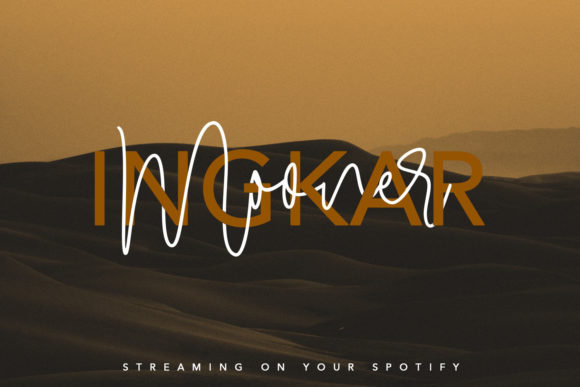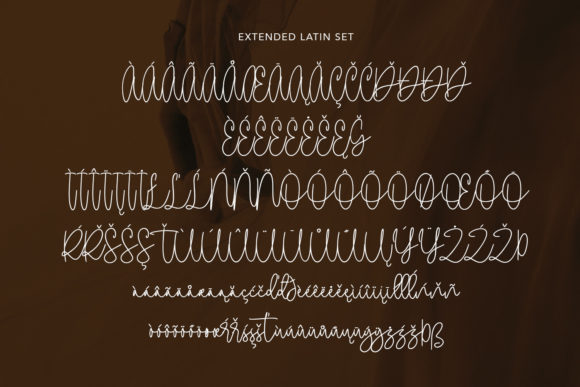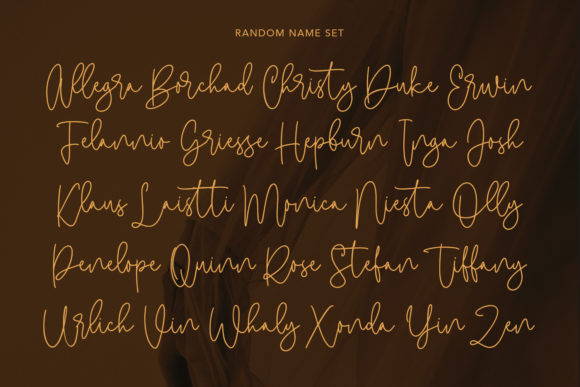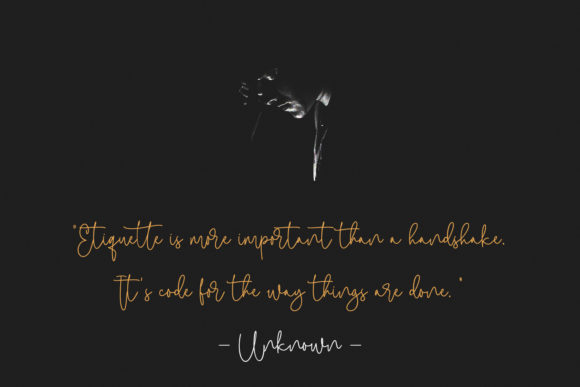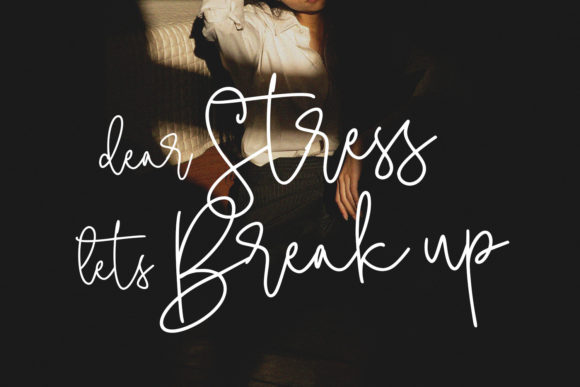
About Bastyan Script Font
Bastyan Script is a thin-lettered, stylish, and delicate script font that exudes elegance. With its neatly crafted and highly detailed design, this font is a valuable asset to your font library. Regardless of the topic, Bastyan Script has the potential to enhance any creation.
The thin letterforms of Bastyan Script bring a sense of refinement and sophistication to your designs. Its stylish appearance adds a touch of modernity and grace. Whether you’re working on invitations, logos, branding materials, or any other project, Bastyan Script elevates the visual appeal with its delicate and stylish aesthetic.
The highly detailed craftsmanship of Bastyan Script is evident in every stroke. Its intricate design elements make it stand out, adding a touch of uniqueness to your typographic compositions. The font’s attention to detail showcases its quality and makes it a standout choice for adding a distinctive touch to your designs.
Bastyan Script is versatile and adaptable, able to complement various design styles and themes. Whether your project is classic and timeless or contemporary and bold, this font seamlessly integrates to enhance the overall visual impact. Its potential to elevate any creation makes it a valuable asset for designers.
In summary, Bastyan Script is a thin-lettered, stylish, and delicate script font that adds an elegant touch to any creation. With its neatly crafted and highly detailed design, it is a valuable asset for designers seeking to enhance their typographic compositions. Embrace the beauty of Bastyan Script and let it elevate your designs with its refined and detailed style.